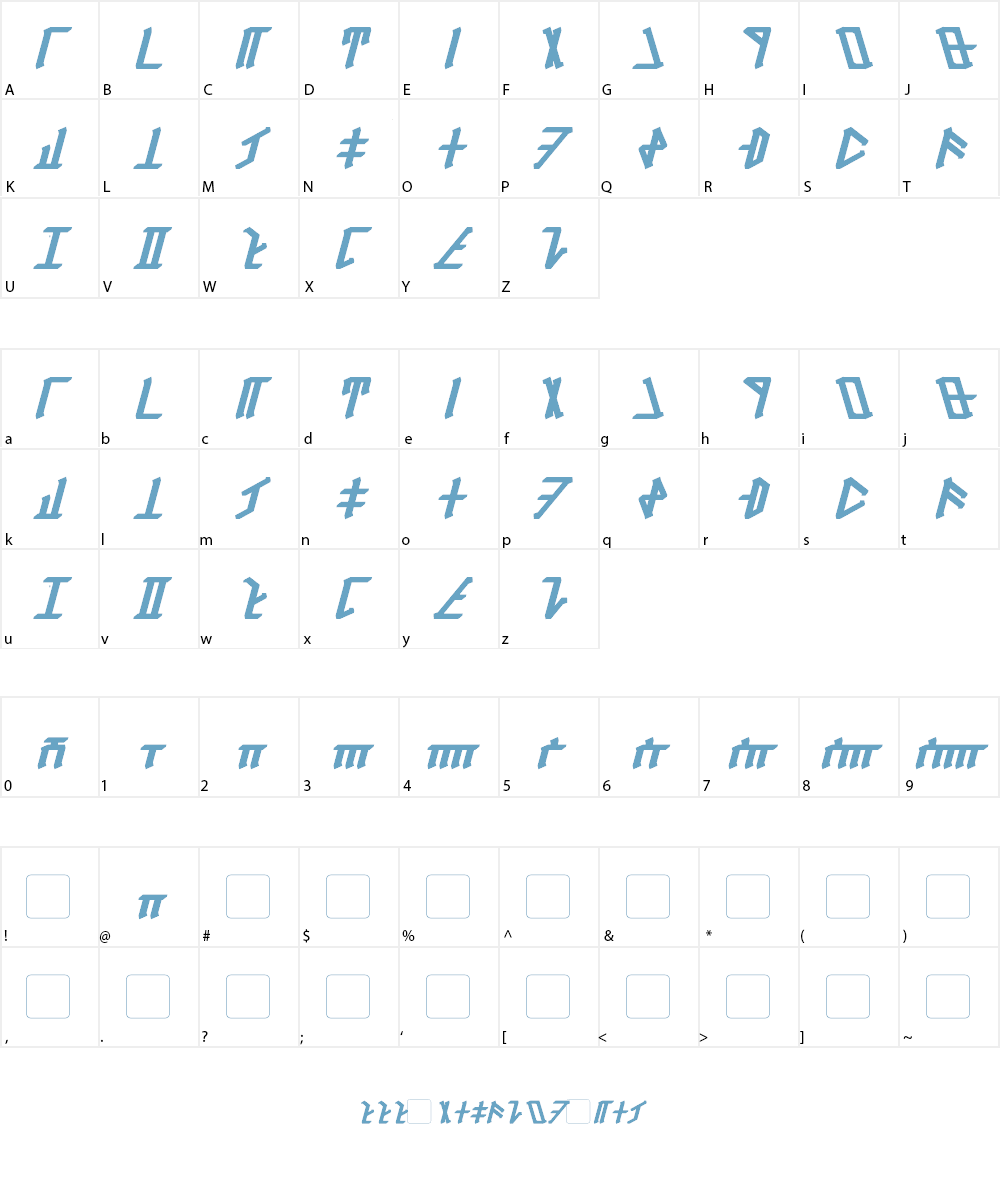
Dethek is the written script for the Dwarven Kingdoms in Wizards of the Coast’s Forgotten Realms setting for Dungeons and Dragons. This face is heavily inspired by the classic Futhark runes. Includes all canon characters. Includes regular, bold, italic, and bold-italic faces.